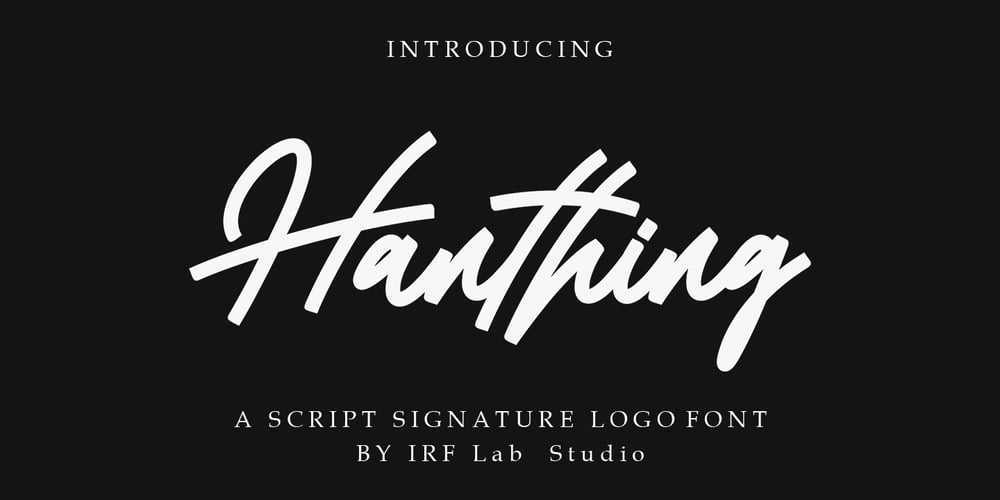
Hanthing Font Family was designed by M Irvan Syouqi S and published by IRF Lab Studio. Hanthing contains 1 styles and family package options. Hanthing Script consists of a fashionable sophisticated signature-style script with its own unique curves and an elegant inky flow. This font is perfect for photography, watermark, social media posts, advertisements, logos & branding, invitation, product designs, label, stationery, wedding designs, product packaging, special events, or anything that needs handwriting taste.Thanks for checking it out, and feel free to message me if you have any questions! say hello by e-mail: irflabstudio@gmail.com